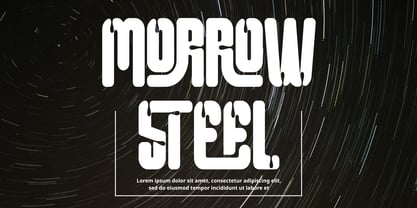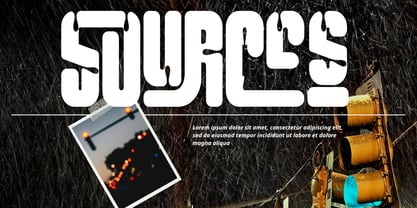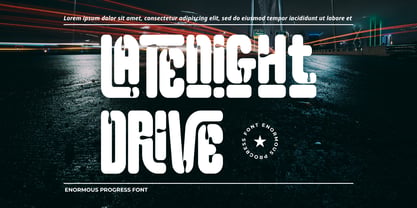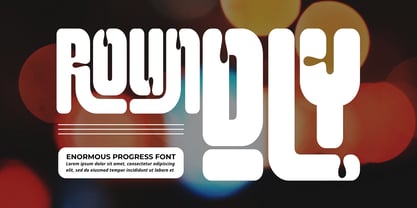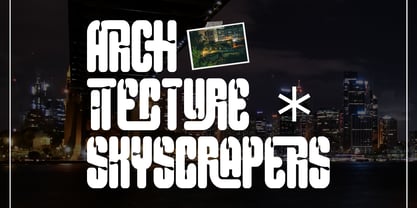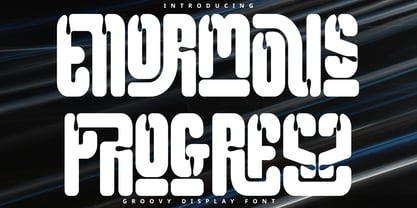
Enormous Progress
La familia tipográfica Enormous Progress fue diseñada por 177Studio y publicada por 177Studio. Enormous Progress contiene 2 estilos y opciones de paquete familiar. Más información sobre esta familia
Enormous Progress - Bold Display Font is a bold experimental display typeface that blends heavy geometric construction with soft, organic curves and a distinctive retro-futuristic personality. Built with thick strokes, condensed proportions, rounded corners, and dramatic internal cuts, the typeface creates powerful letterforms that feel solid and graphic while remaining fluid and expressive. Deep notches and unusual transitions appear throughout the characters, producing an almost melted or sculpted quality that gives Enormous Progress its unmistakable visual identity.